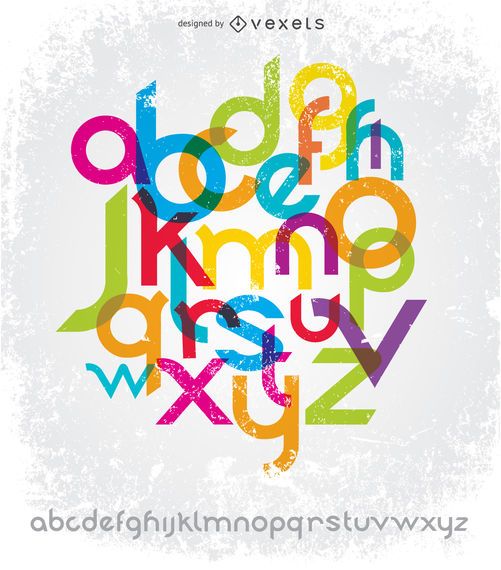
Original font type created exclusively by us in cool modern san serif style only lower case fonts. High quality JPG included.Under Commons 4.0. Attribution License.